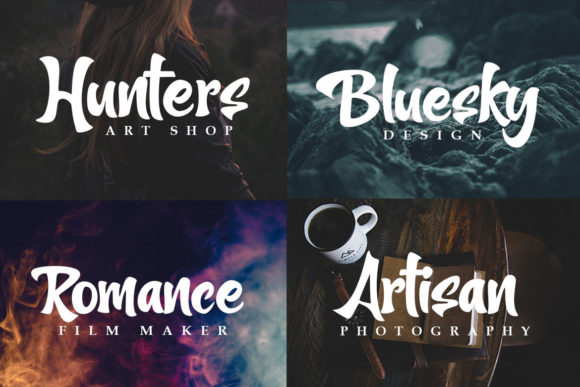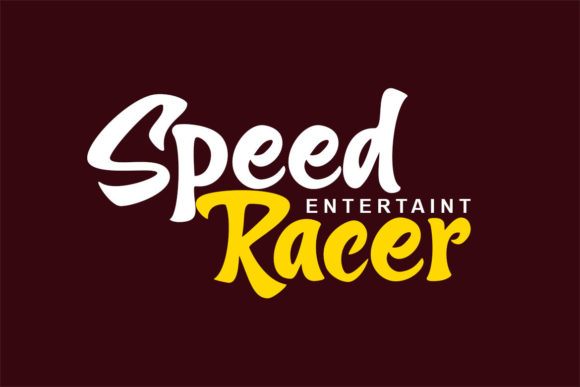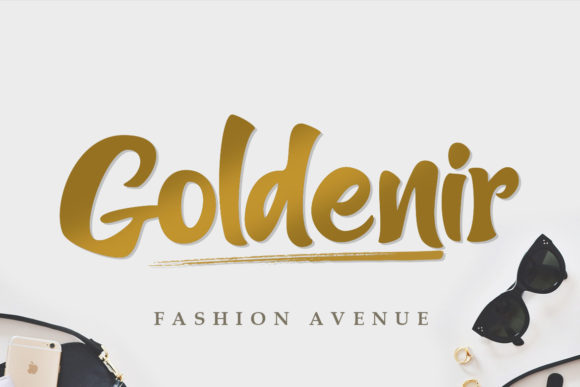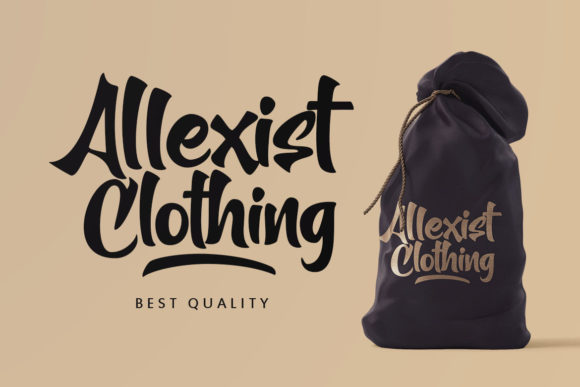
Introducing Awfull Font: The Chic and Trendy Handwritten Font for Designers and Crafters
Are you tired of using the same old fonts for your designs and crafts? Look no further! Awfull Font is here to revolutionize your creative projects with its unique, chic, and trendy handwritten style. Whether you’re a digital designer, crafter, or simply someone who loves making greeting cards, Awfull Font is the perfect addition to your toolkit.
What Makes Awfull Font So Special?
Awfull Font is a carefully crafted handwritten font that exudes elegance and sophistication. Its unique charm lies in its imperfections, which give it a delightfully human touch that’s hard to find in more traditional fonts. With Awfull Font, you can add a personal touch to your designs, making them stand out from the crowd.
Perfect for Various Creative Projects
Awfull Font is incredibly versatile, making it suitable for a wide range of creative projects. Here are just a few ideas to get you started:
- Crafting: Use Awfull Font to add a personal touch to your scrapbooking, journaling, or card making projects.
- Digital Designing: Add a touch of elegance to your social media graphics, presentations, or website designs.
- Presentations: Make your presentations more engaging and memorable with Awfull Font’s unique style.
- Greeting Cards Making: Create beautiful, one-of-a-kind greeting cards for special occasions.
Key Features of Awfull Font
Here are some key features that make Awfull Font a must-have for designers and crafters:
- Handwritten Style: Awfull Font boasts a beautiful, handwritten style that’s perfect for adding a personal touch to your designs.
- Unique Character: Each letter has its own unique character, making your designs truly stand out.
- Easy to Read: Despite its handwritten style, Awfull Font is easy to read, making it perfect for body text and headings.
- Scalable: Awfull Font is highly scalable, ensuring that it looks great in any size or application.
Tips for Using Awfull Font
Here are some tips to help you get the most out of Awfull Font:
- Mix and Match: Combine Awfull Font with other fonts to create visually appealing contrasts.
- Play with Sizes: Experiment with different font sizes to add emphasis and create visual hierarchy.
- Add Colors: Use Awfull Font with a range of colors to add personality and style to your designs.
In conclusion, Awfull Font is a chic and trendy handwritten font that’s perfect for designers and crafters looking to add a personal touch to their creative projects. With its unique character, ease of use, and versatility, Awfull Font is sure to become a staple in your design toolkit. So why wait? Download Awfull Font today and start creating stunning designs that stand out from the crowd!